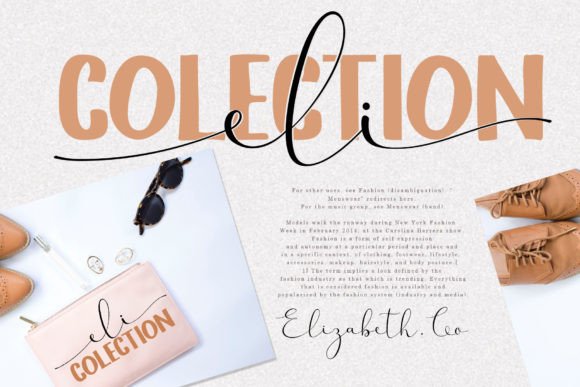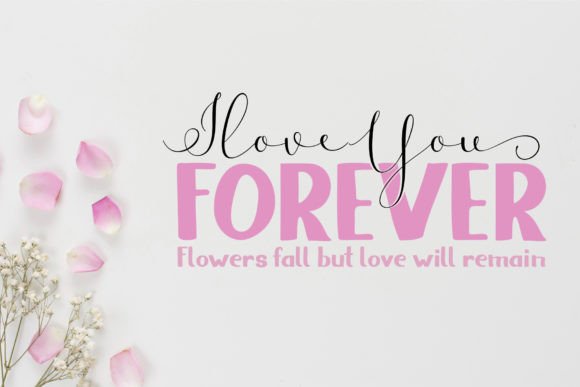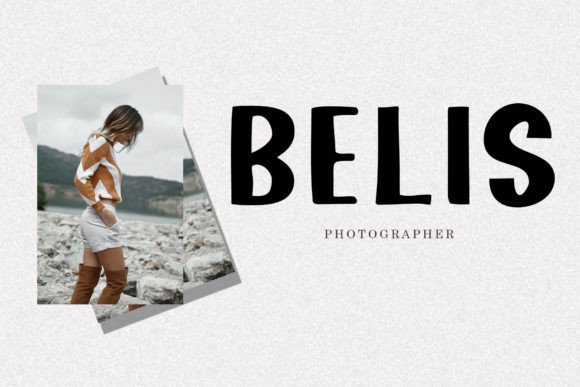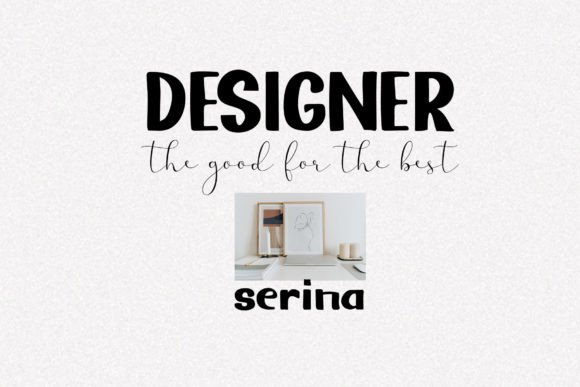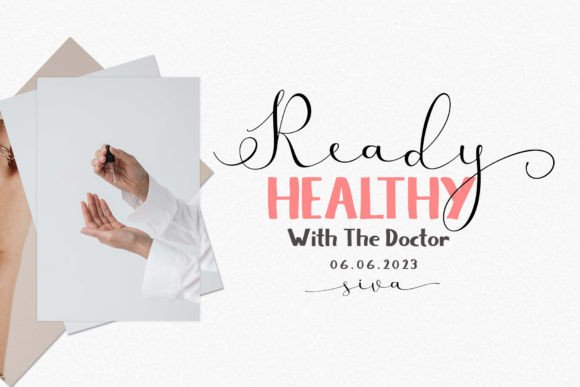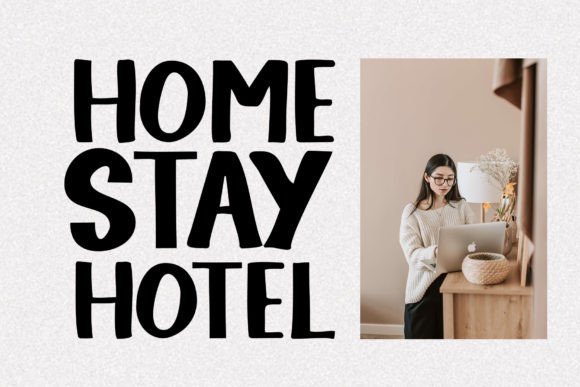
Discovering the Joy of Happy Arila Duo Font
Have you ever found yourself lost in a creative flow, surrounded by scribbled notes, coffee-stained papers, and a dash of inspiration? That’s exactly where I was when I stumbled upon the delightful Happy Arila Duo Font. Its whimsical charm instantly captured my heart, and I knew I had to share it with fellow designers and creatives.
Happy Arila Duo Font is a beautiful, handwritten font duo that brings a touch of playfulness to any design. Its delicate curves and expressive lines make it perfect for crafting adorable graphics, labels, and other visual elements that evoke a sense of joy and warmth. Whether you’re working on a children’s book, a food blog, or a wedding invitation, this font duo is sure to add a personal touch that resonates with your audience.
For designers, Happy Arila Duo Font is a valuable addition to any toolkit. Its versatility and charm make it an ideal choice for a wide range of projects, from branding and marketing materials to digital art and print designs. With Happy Arila Duo Font, you’ll be able to infuse your work with a sense of personality and whimsy that sets you apart from the crowd.
Happy Arila Duo Font Key Features
- Font Family: Happy Arila Duo, a beautiful and elegant script font designed to bring a touch of happiness to your designs.
- Unique Characteristics: Features a unique blend of elegance and playfulness, making it perfect for designs that require a touch of sophistication and whimsy.
Happy Arila Duo Font Review
I recently had the chance to work with the Happy Arila Duo Font, and here’s my honest review.
- The Happy Arila Duo Font is incredibly versatile and suitable for various design projects, from modern logos to elegant book covers.
- The font’s playful, handwritten feel adds a touch of warmth and personality to any design, making it perfect for creative and expressive projects.
- The font is highly customizable, allowing designers to adjust the spacing, weight, and style to fit their specific needs.
- The Happy Arila Duo Font may not be the best choice for formal or corporate designs, as its playful feel may come across as unprofessional.
- The font’s variability in letterform can make it difficult to read at small sizes or in low-resolution environments.
Overall, the Happy Arila Duo Font is a solid choice for designers looking to add a touch of whimsy and personality to their projects. While it may not be suitable for every design context, it’s a great option for creative and expressive projects where a handwritten feel is desired.
Tips for Getting the Most Out of Happy Arila Duo Font
Use the Happy Arila Duo Font to create playful and modern designs that stand out from the crowd.
Experiment with different font sizes and colors to add depth and visual interest to your design.
Combine the Happy Arila Duo Font with other fonts to create a unique and eye-catching visual style.
Alternatives to “Happy Arila Duo Font”
The Great Vibes Font is a modern script font that is perfect for creating a fun and playful atmosphere. It is ideal for use in headings, titles, and quotes. This font is great for designers who want to add a touch of elegance and sophistication to their designs. In comparison to Happy Arila Duo Font, Great Vibes Font has a more refined and polished look, making it suitable for a wider range of design applications.
The Crimson Text Font is a serif font that is designed to be highly legible and versatile. It is perfect for use in body text, headings, and titles. This font is great for designers who want to create a classic and timeless look in their designs. In comparison to Happy Arila Duo Font, Crimson Text Font has a more traditional and formal look, making it suitable for use in business cards, resumes, and other professional documents.